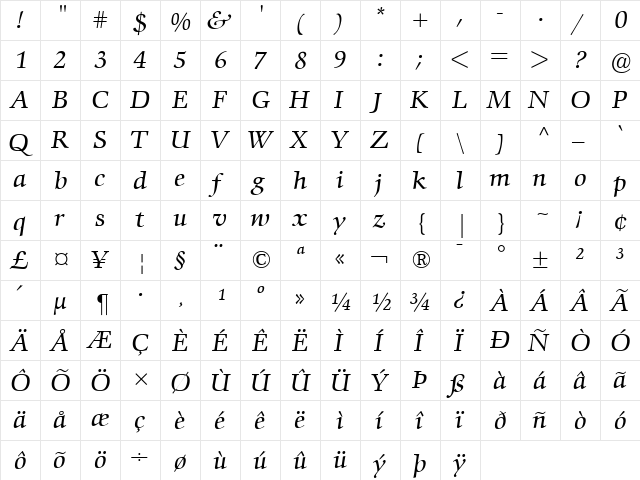
Comenius Antiqua Italic
| Foundry | Adobe Systems Incorporated |
Design Context for Comenius Antiqua Typeface
Comenius Antiqua offers clean, dependable letterforms without strong stylistic allegiance, making it a practical choice for designers who need flexibility. Its italic angle brings a sense of urgency and motion to the letterforms.
Pro Tip: Use Comenius Antiqua for emphasis, pull quotes, and subheadings where its slanted energy can add rhythm to the layout.